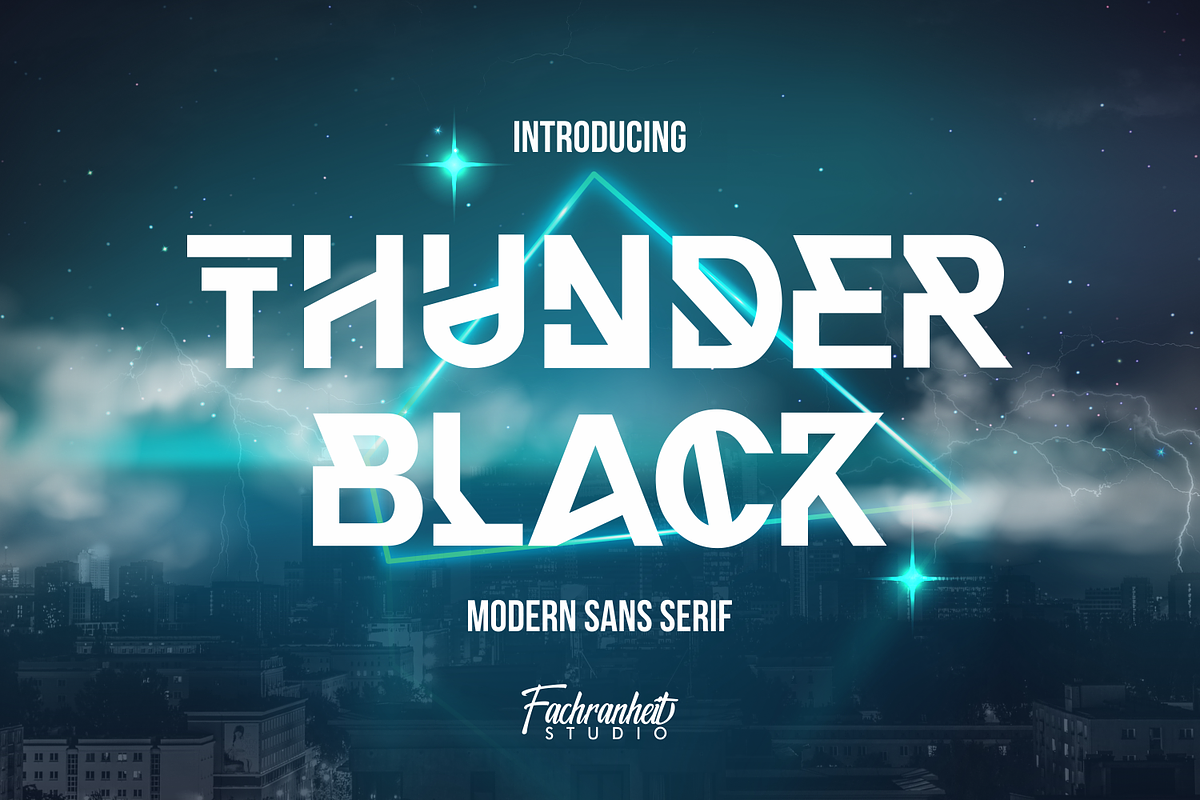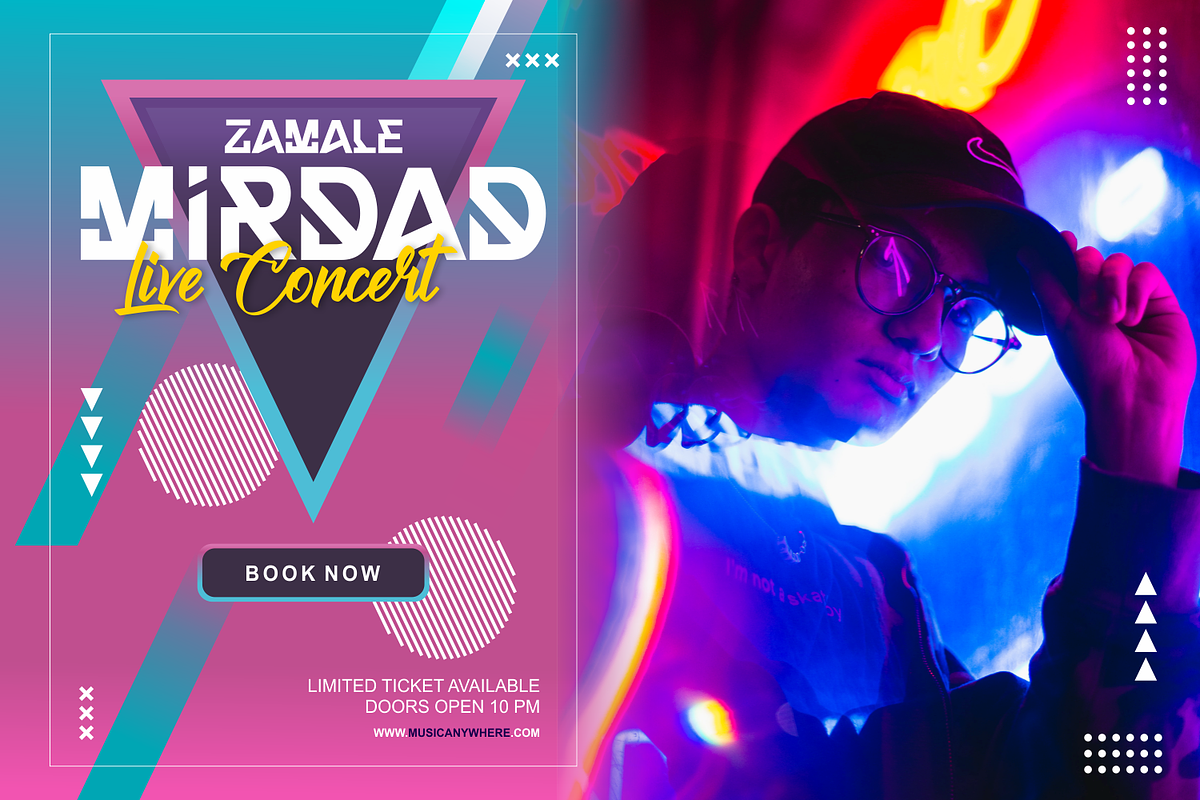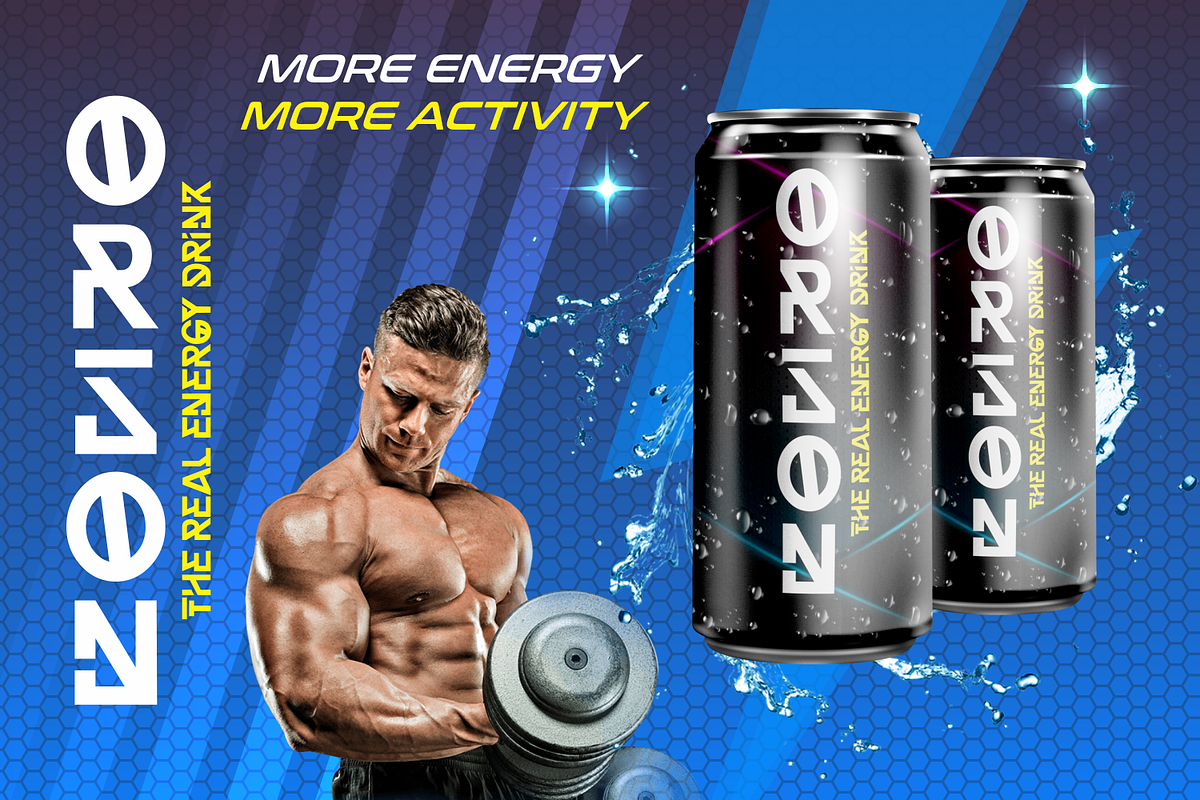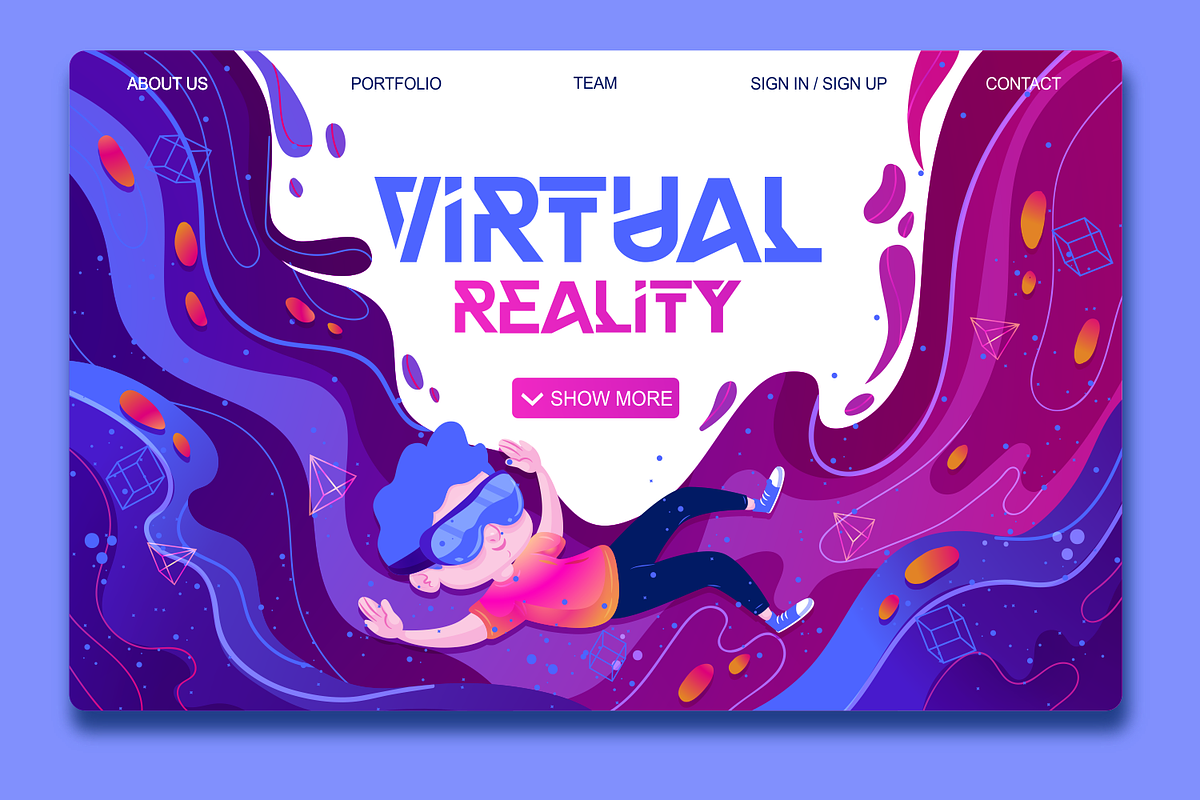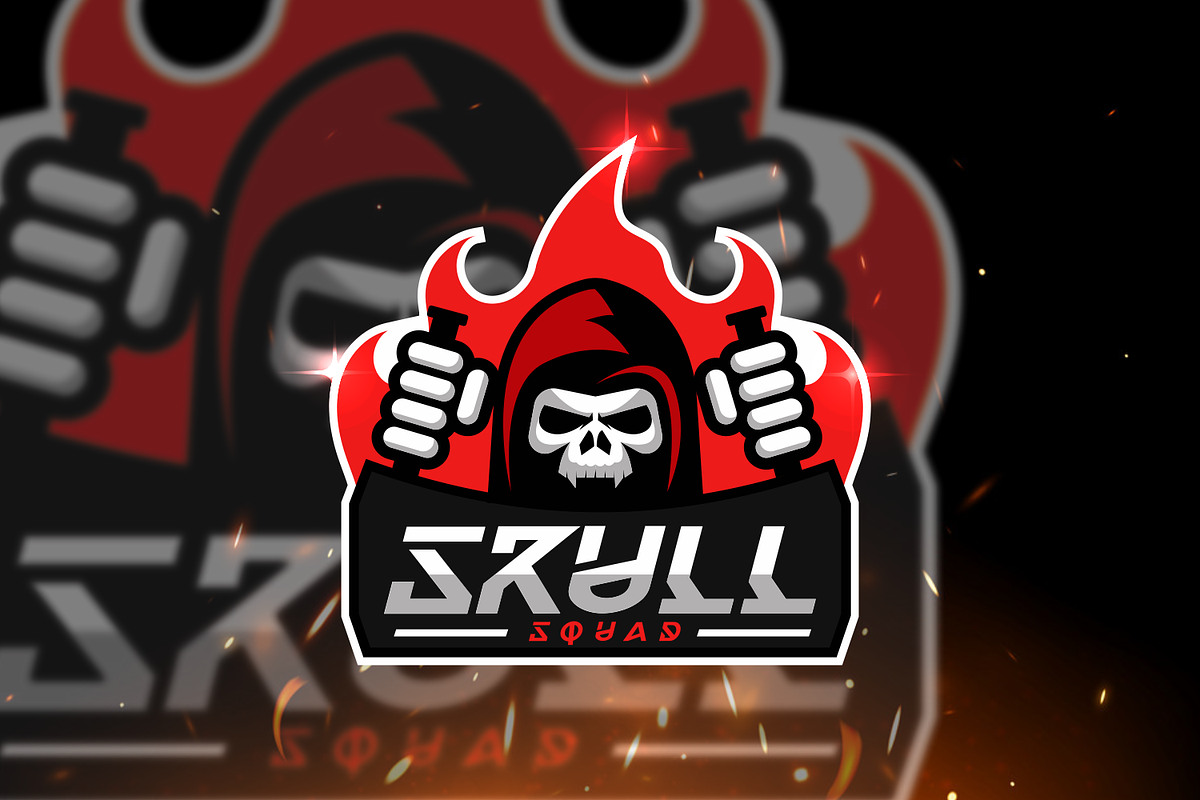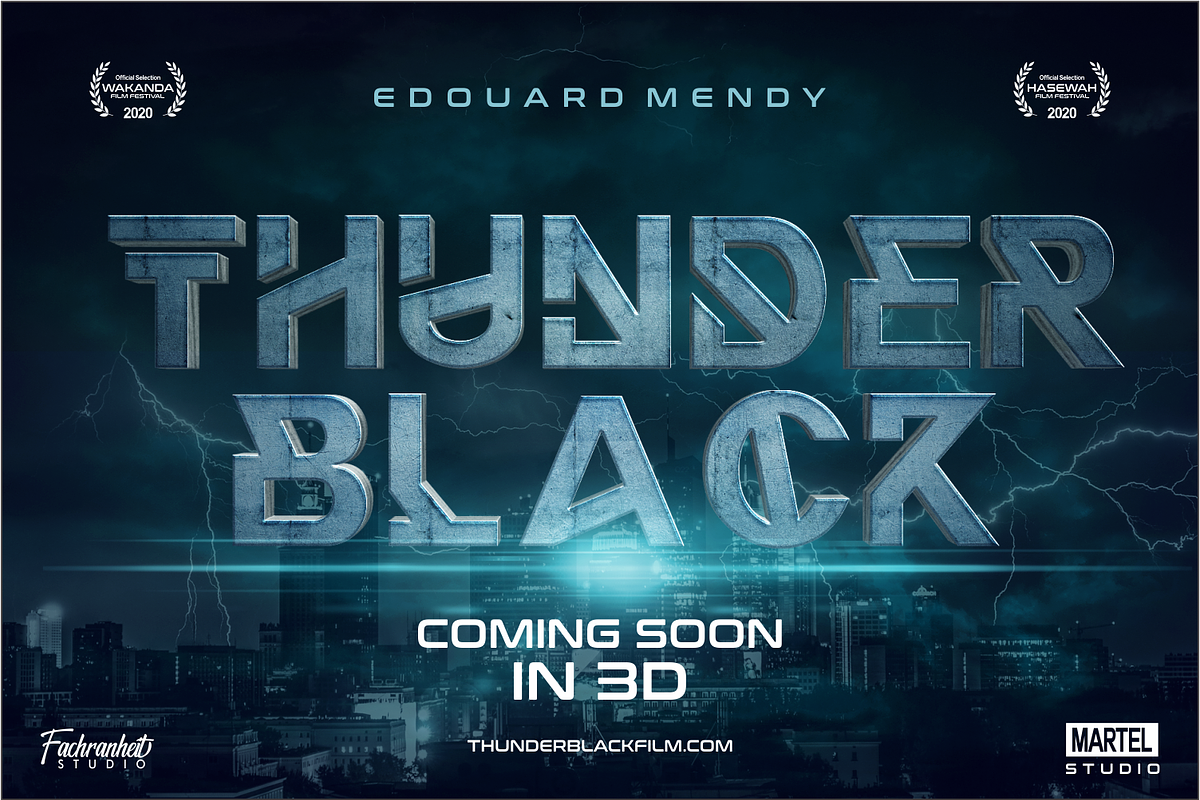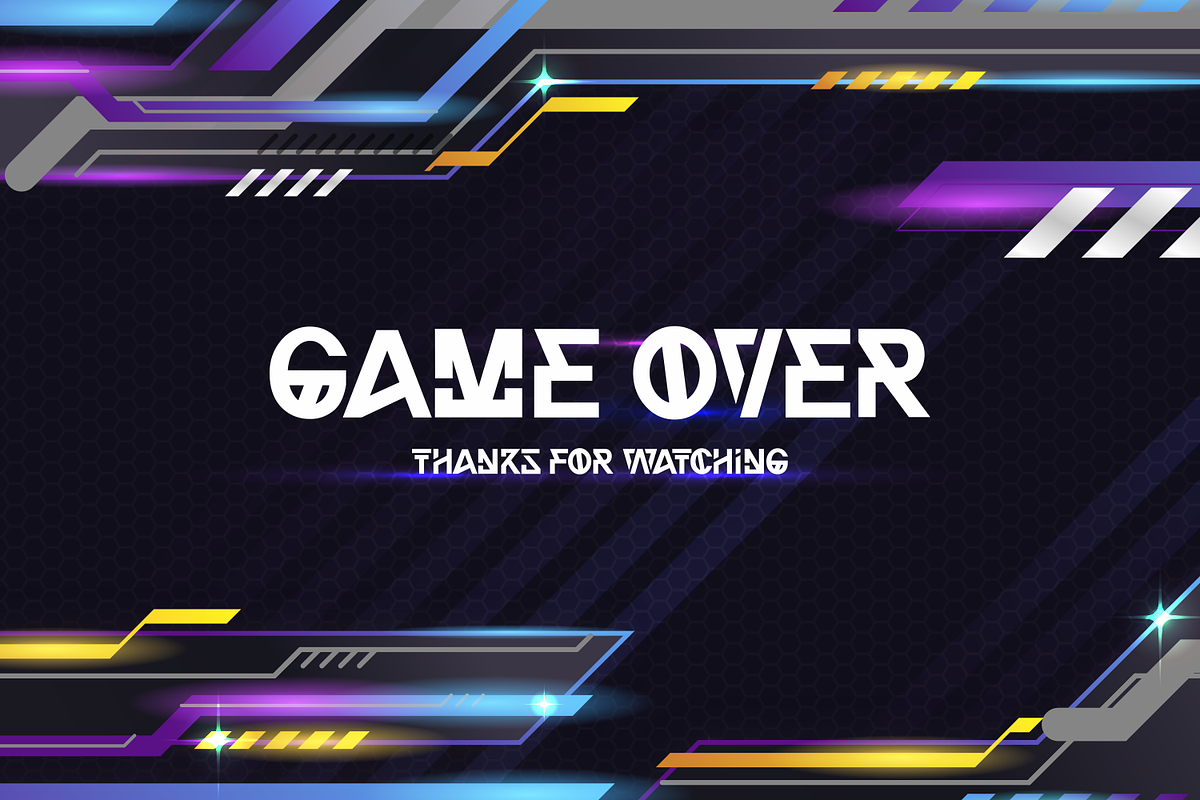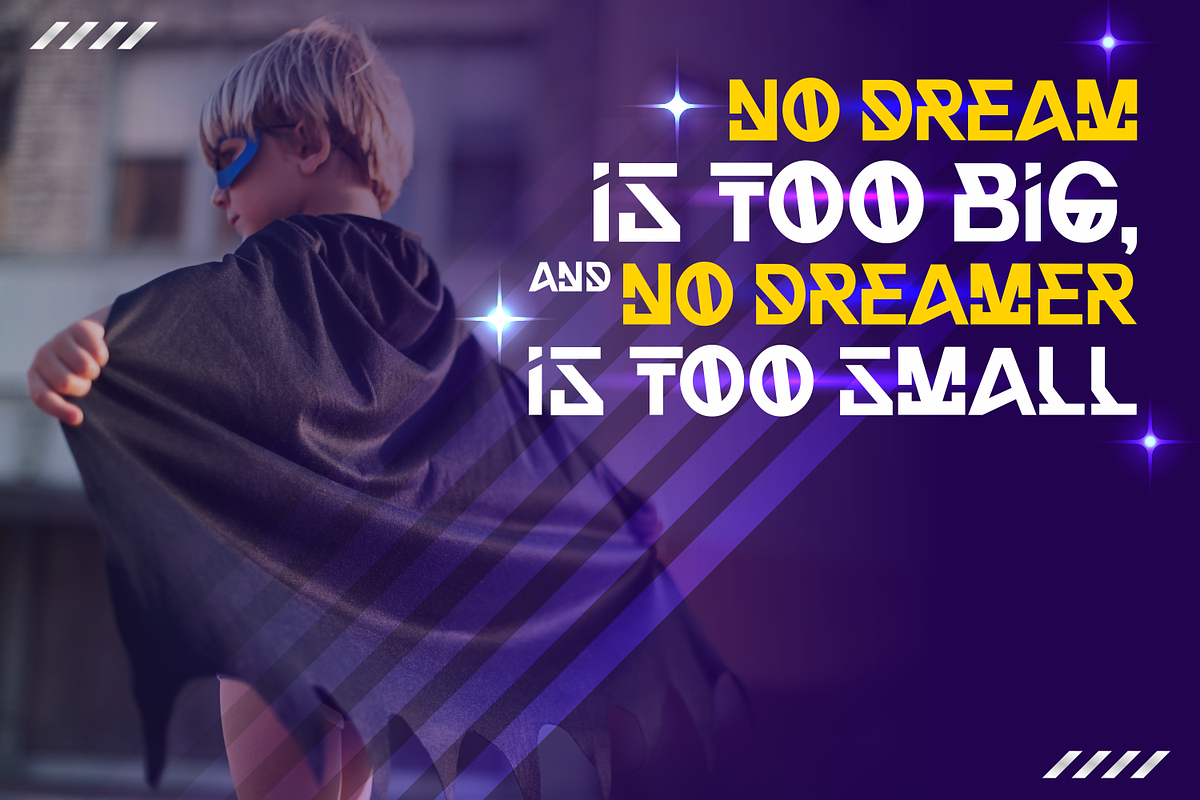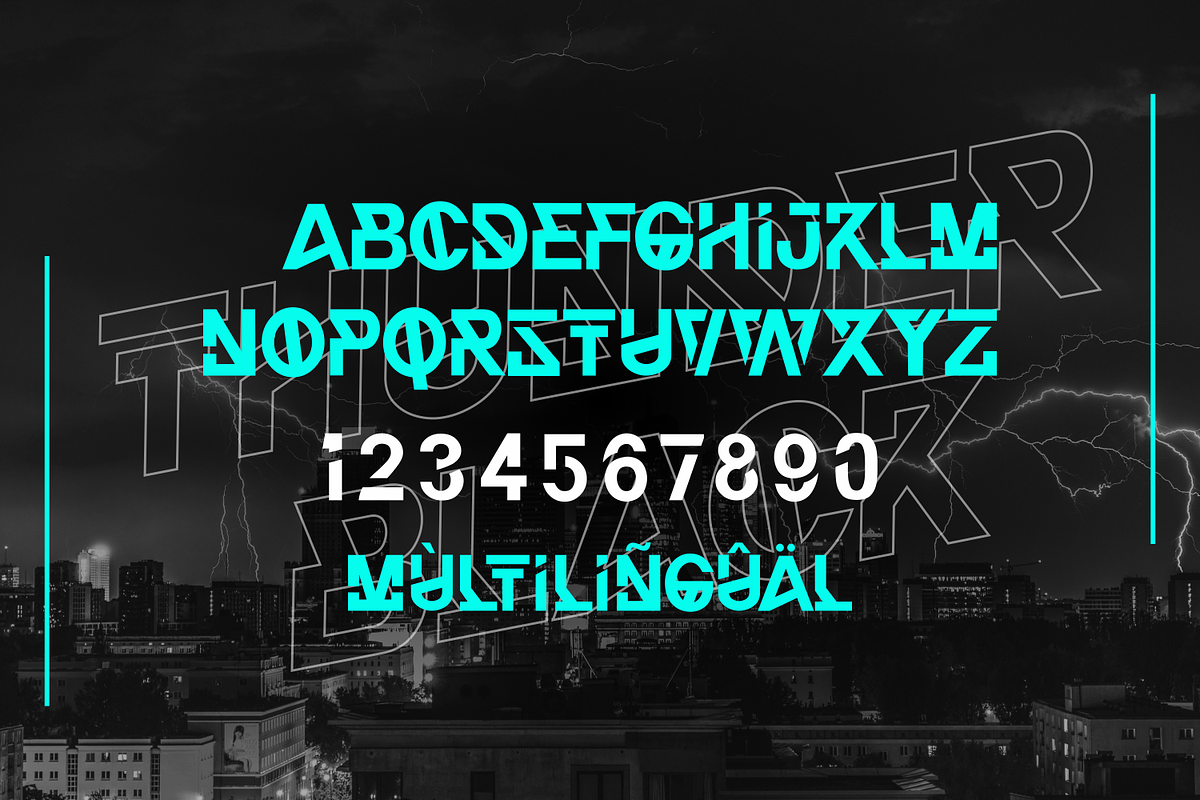
Thunder Black
Thunder Black is a modern and unique sans-serif font. It can easily be matched to an incredibly large set of projects and use it for movie posters, flyers, game logo, esport logo, logotype, packaging and much more!, so add it to your creative ideas and notice how it makes them stand out! Here come with 2 style.
- Thunder Black
- Thunder Black Italic
- Multilanguage Support